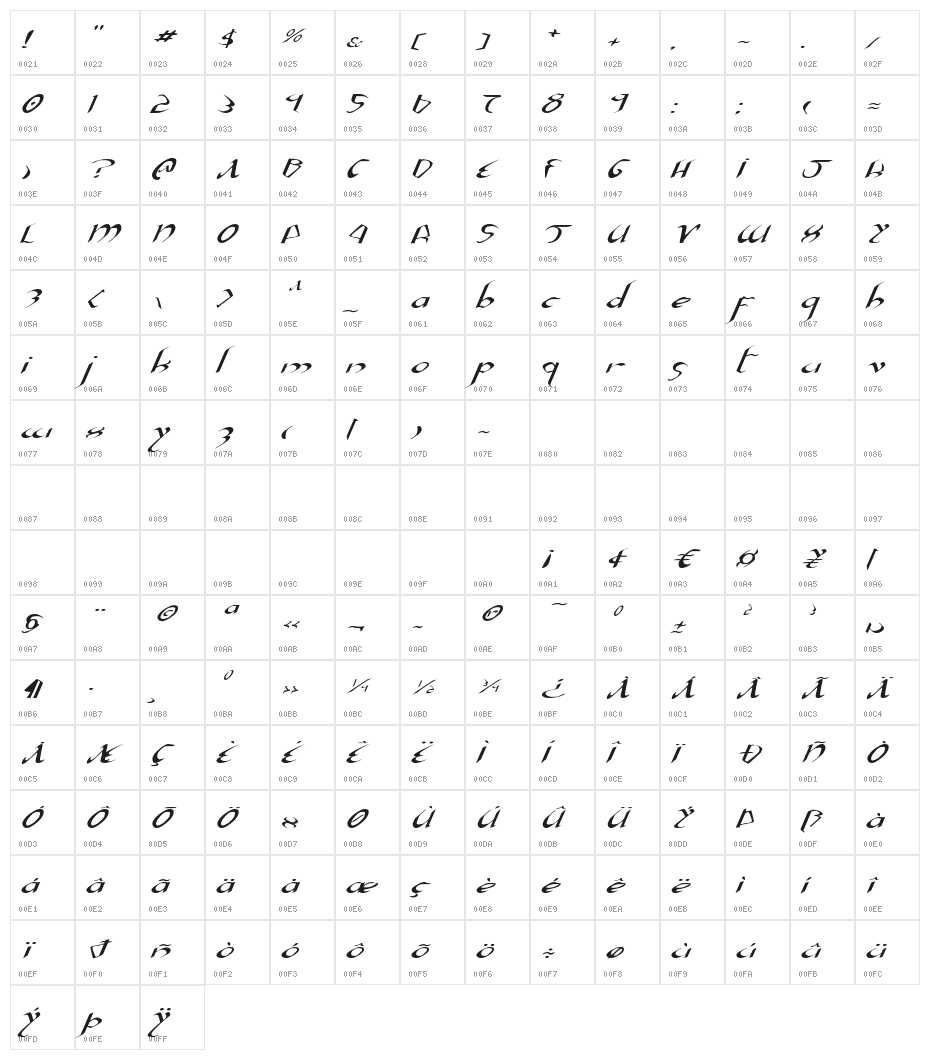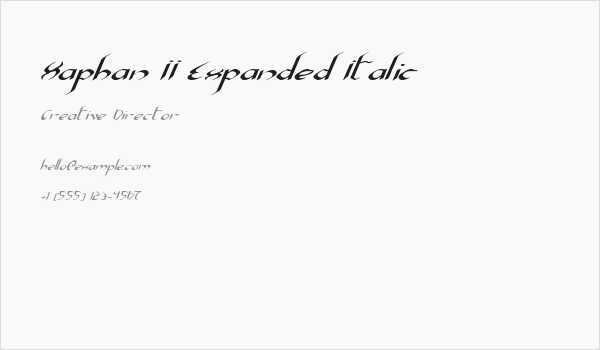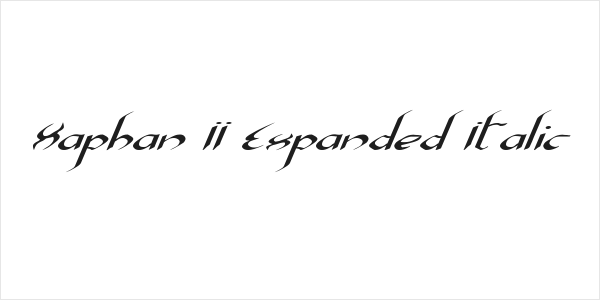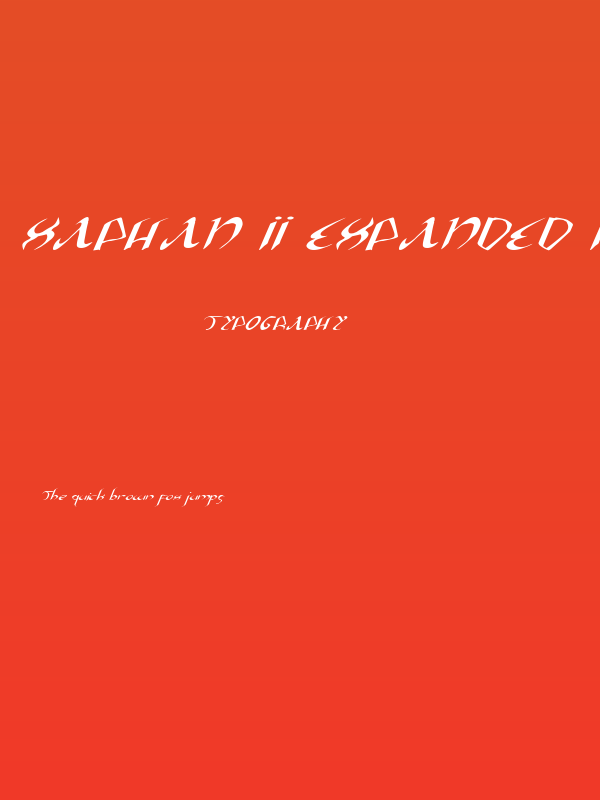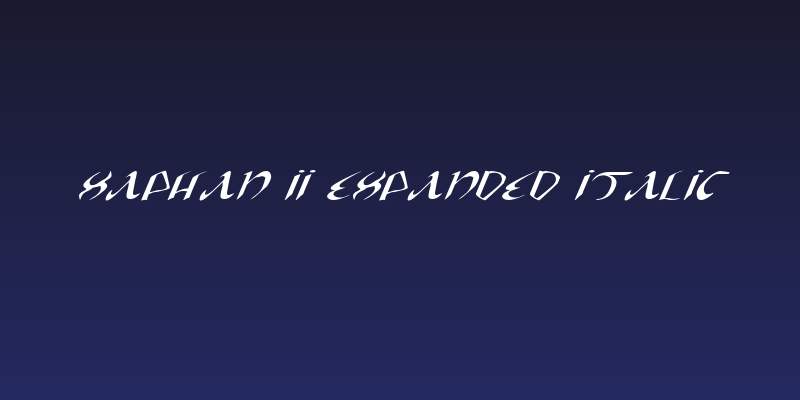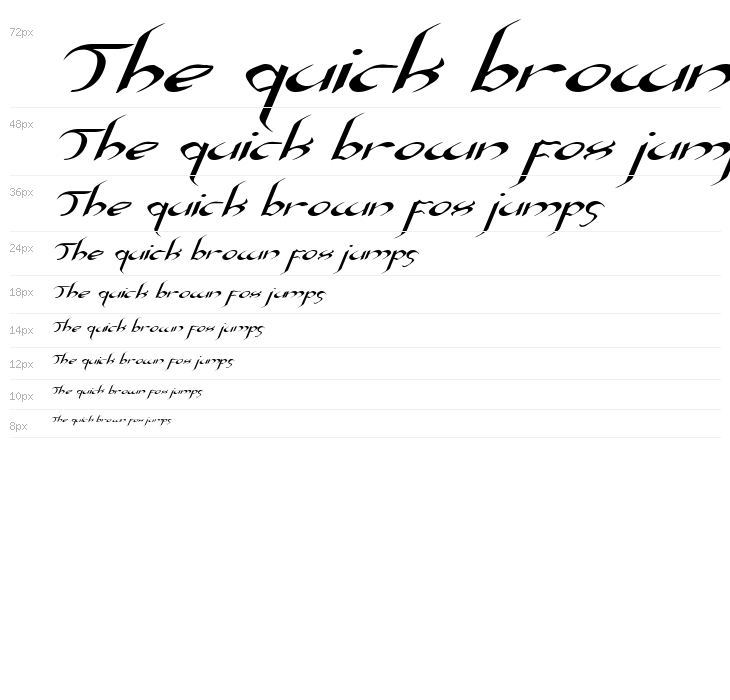
Xaphan II Expanded Italic Font
Xaphan II Expanded Italic Description
This font features a dynamic and expressive style with a strong italic slant, giving it a sense of motion and energy. The characters are elongated and have sharp, angular edges, creating a dramatic and bold appearance. The strokes vary in thickness, adding a sense of depth and contrast. The uppercase letters are particularly striking, with unique shapes that stand out. The lowercase letters maintain the same energetic style, ensuring consistency throughout the text. Numbers and special characters are designed to match the overall aesthetic, making this font versatile for various uses.
| Proposed Projects | Ideal for projects that require a bold and energetic look, such as posters, album covers, or branding for edgy and modern products. |